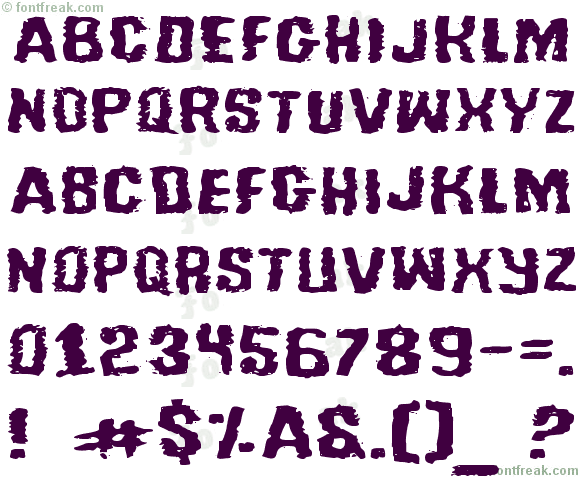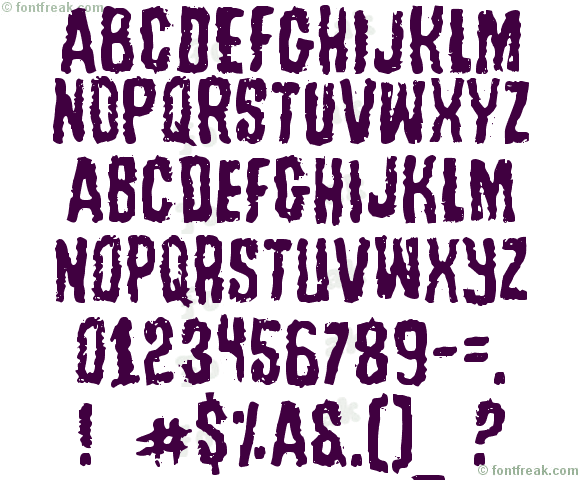
Tussle
Tussle Expanded
About Tussle
Tussle, designed by Iconian Fonts in 2001, is a striking display font that captures attention with its unique visual style. This free-to-download font features a bold, rugged aesthetic that gives off an edgy, handcrafted vibe. The characters exhibit a heavy stroke weight and an uneven, textured appearance, which adds an element of dynamism and character. The spacing between letters is tightly packed, enhancing its visual impact, while the decorative elements evoke a sense of raw creativity, making it ideal for projects that aim to stand out.
The Tussle font is versatile and can be effectively used in a variety of contexts. It works exceptionally well for creating eye-catching movie posters, where its boldness can convey the film's intensity. Additionally, it is perfect for restaurant menus, adding a rustic charm that complements casual dining establishments. Graphic designers might find it ideal for branding materials, especially for businesses looking to project a strong, memorable identity. Wedding invitations that want a touch of unconventional flair can also benefit from Tussle's distinctive style, ensuring that the invites leave a lasting impression. Content creators searching for unique title graphics or social media posts will appreciate how this font draws attention and engages audiences.
Targeting graphic designers, small business owners, and content creators alike, Tussle stands out with its ability to blend artistry and functionality. Its freeware license makes it accessible, allowing creatives to utilize it without financial constraints. With the Tussle font free download available, it opens doors for those looking to add a unique touch to their projects. This font not only enhances visual appeal but also communicates a sense of individuality, making it an excellent choice for anyone seeking to make a bold statement.